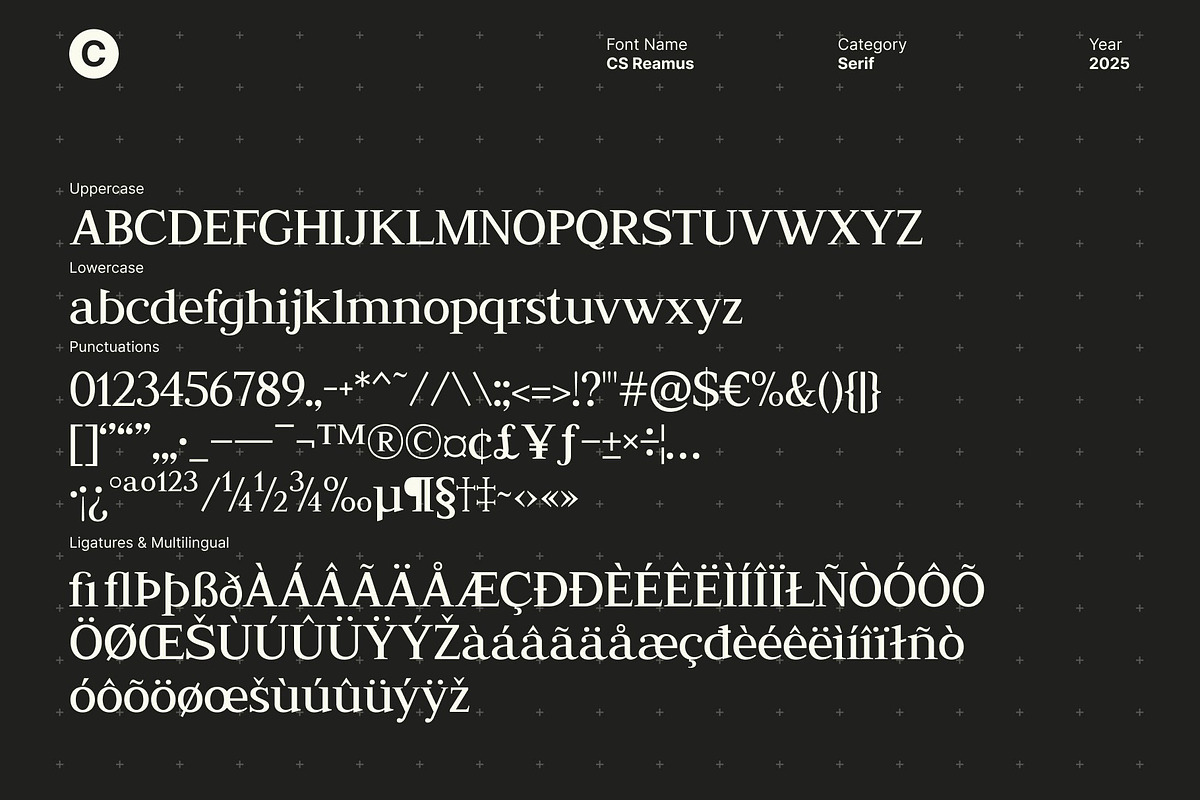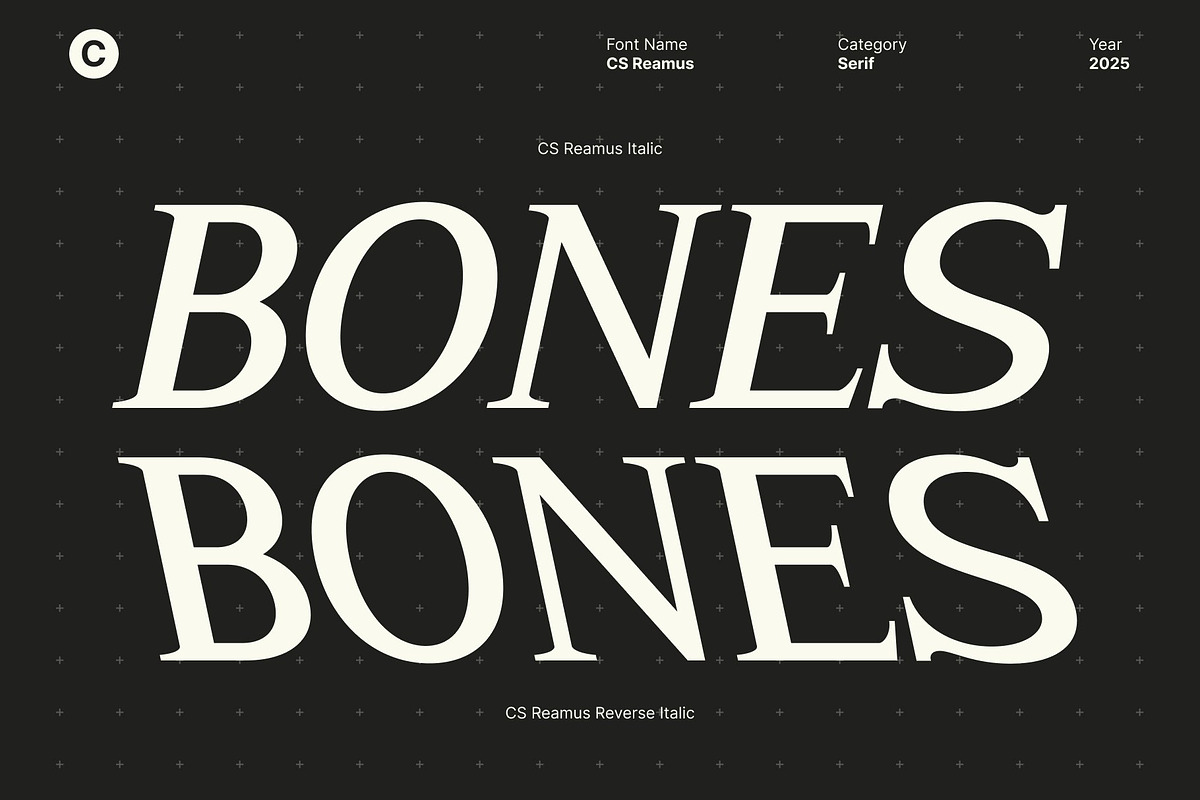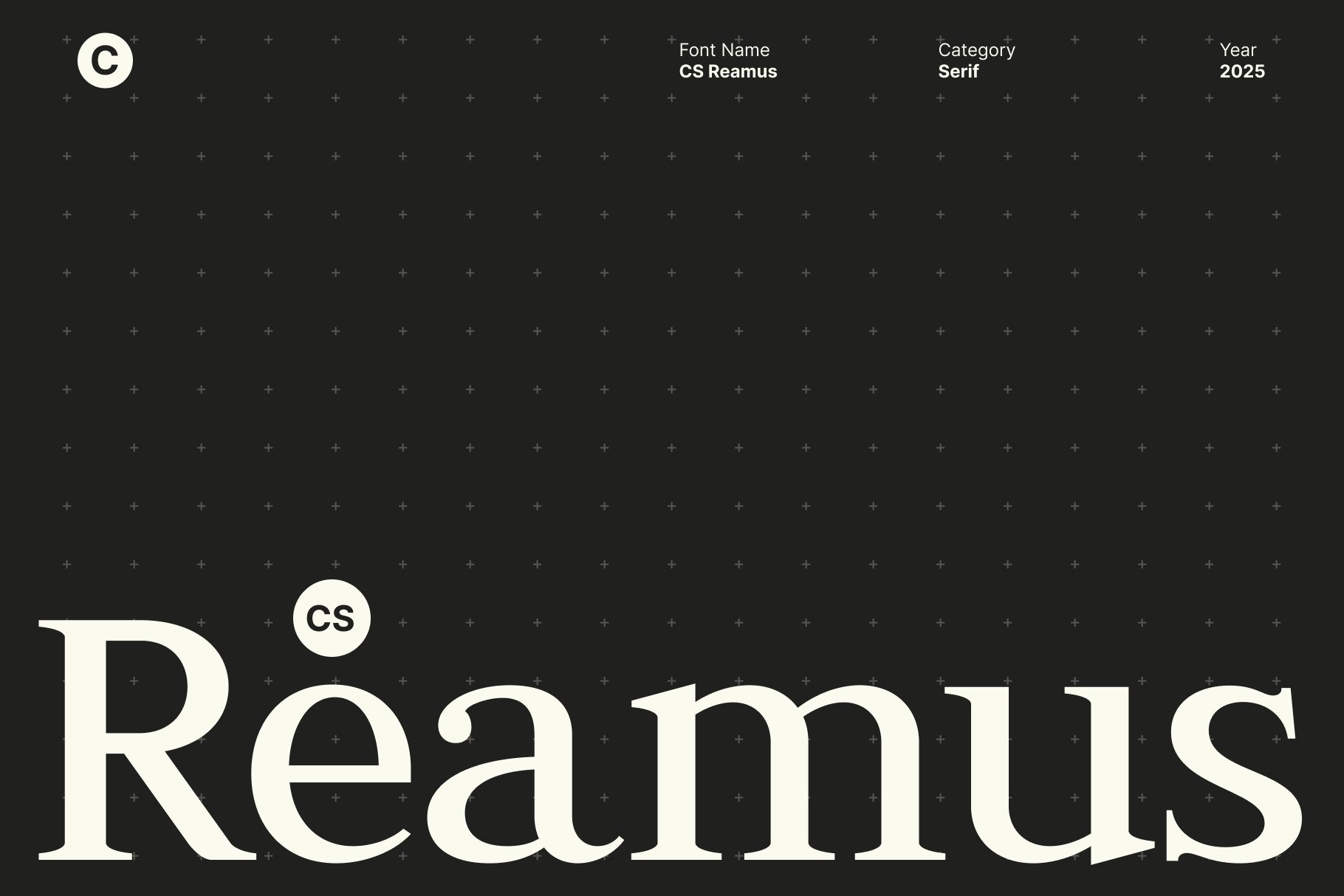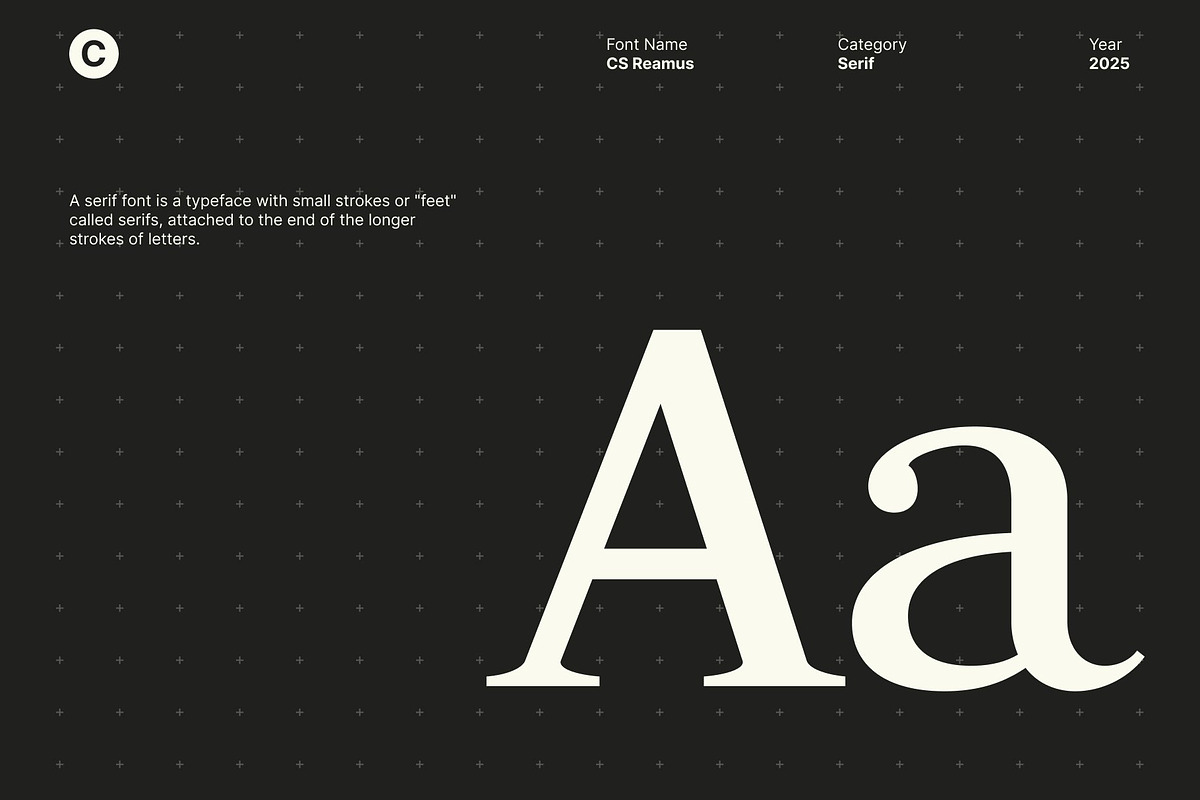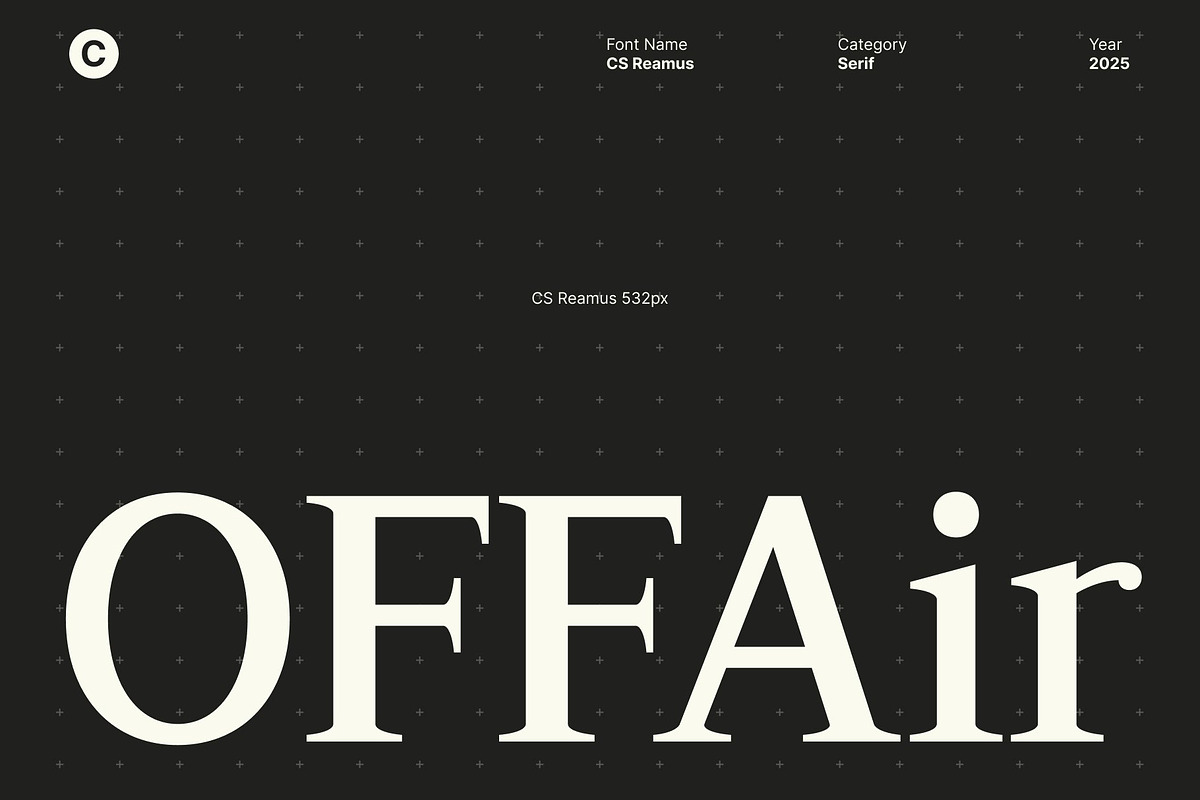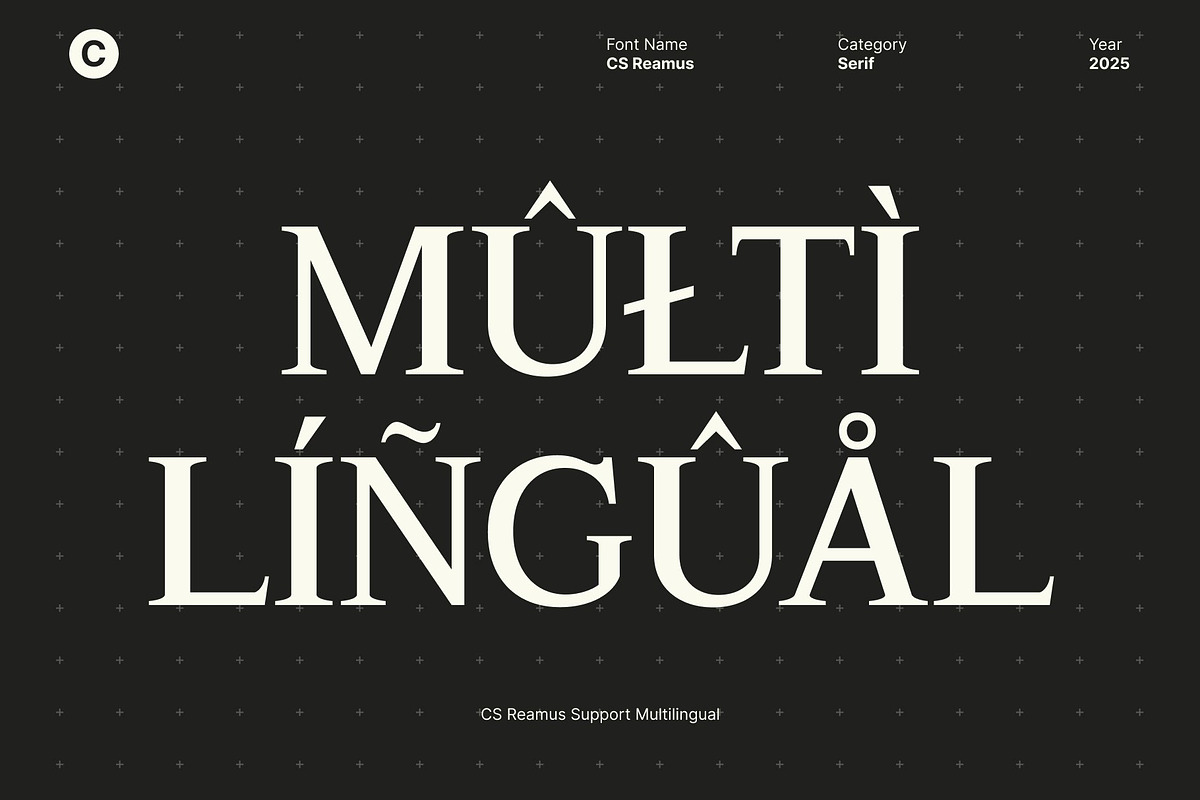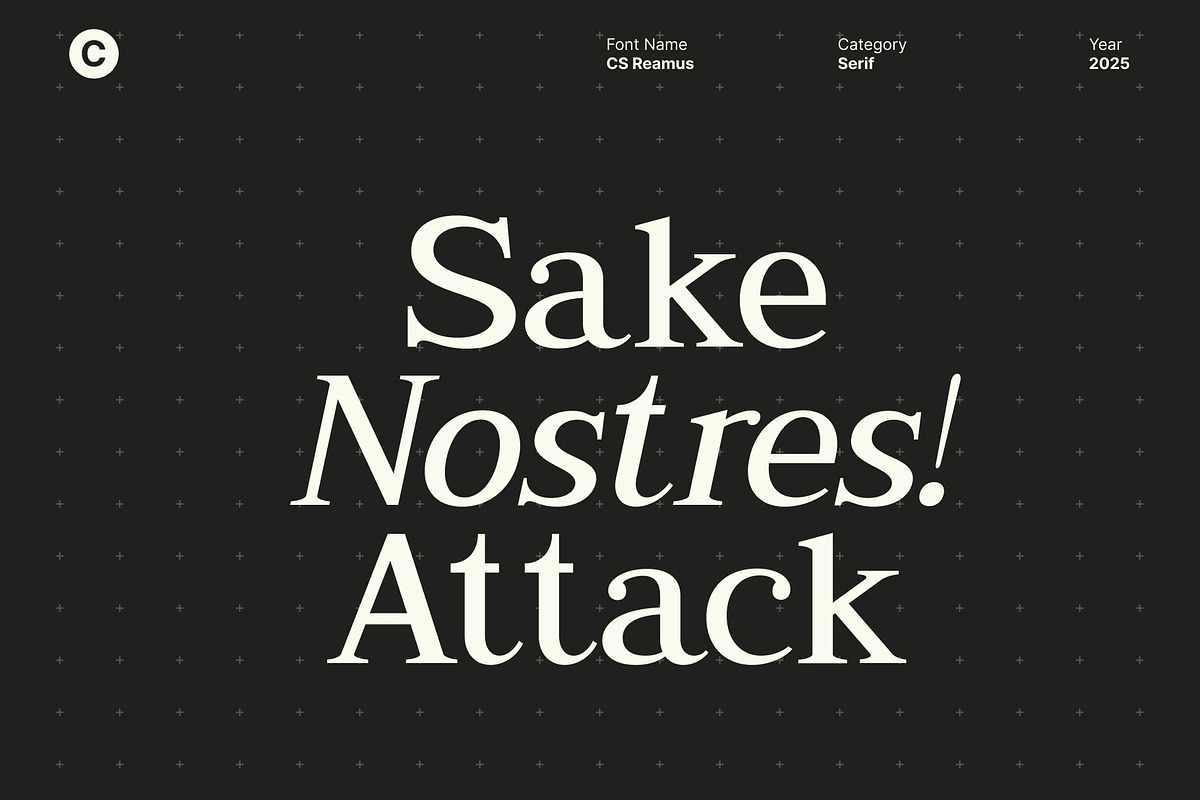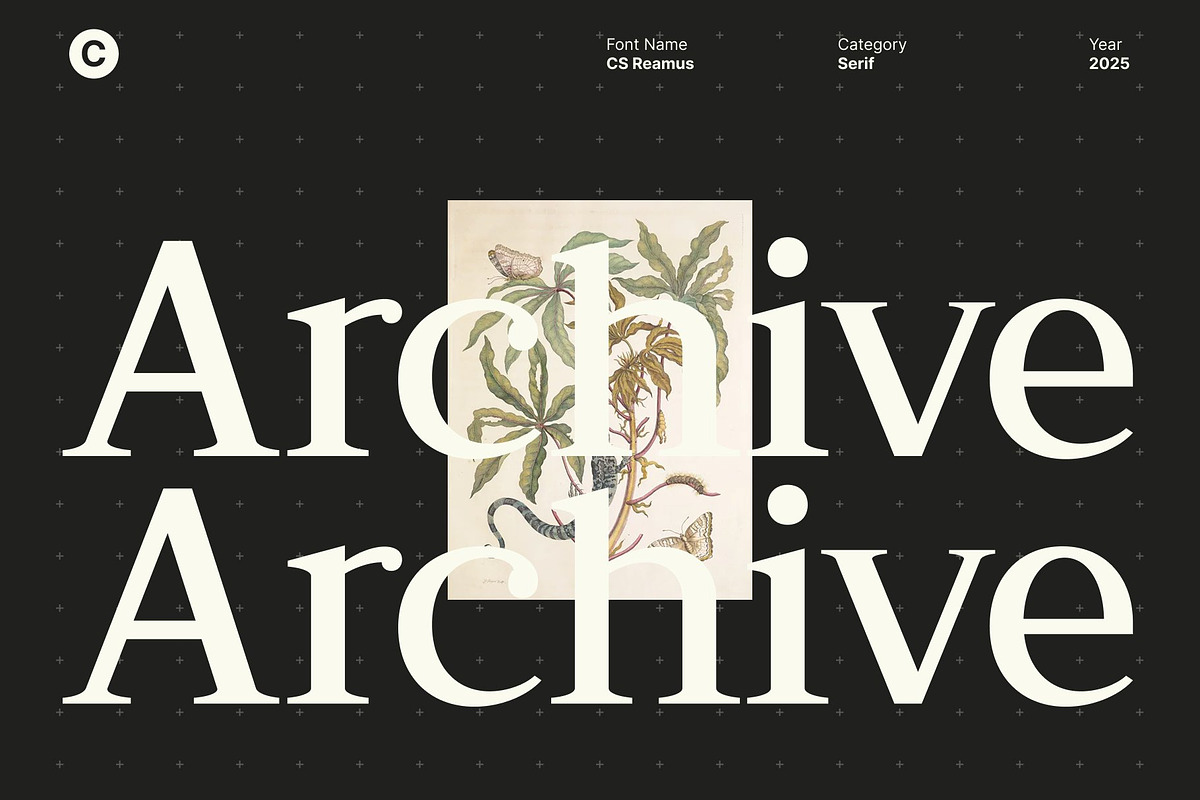
CS Reamus – Serif Typeface
CS Reamus – Modern Simplicity with Timeless Elegance
A Refined Modern Serif for Elegant Expression This is a modern serif font defined by its minimal yet stylish design. It embraces simplicity while maintaining an air of sophistication, offering a perfect balance between contemporary aesthetics and timeless appeal. Each letterform is carefully shaped to exude clarity, professionalism, and understated beauty.
Clean Lines with Professional Character The font’s precise geometry and subtle serif details communicate confidence and elegance. Its clean and balanced proportions make it ideal for projects that require a polished and refined tone from corporate branding to high-end editorials. This font adds structure and grace to any visual composition.
Perfect for Editorial and Branding Applications Designed to perform beautifully in print and digital media, this font elevates editorial layouts, brand identities, and creative visuals with ease. Its modern elegance adapts seamlessly to logos, magazine titles, posters, and marketing materials, giving every design a professional and cohesive look.
Timeless Sophistication for Modern Design This font is more than a serif font it’s a statement of style and refinement. By combining minimalism with graceful form, it creates an impression that feels both enduring and forward-thinking. Whether used in large headlines or subtle branding accents, it delivers elegance that never fades.
- CS Reamus Regular
- CS Reamus Italic
- CS Reamus Reverse Italic